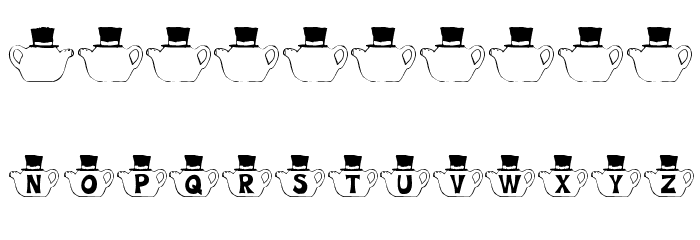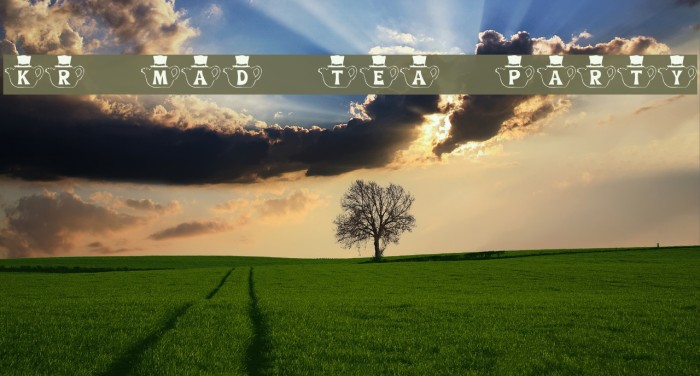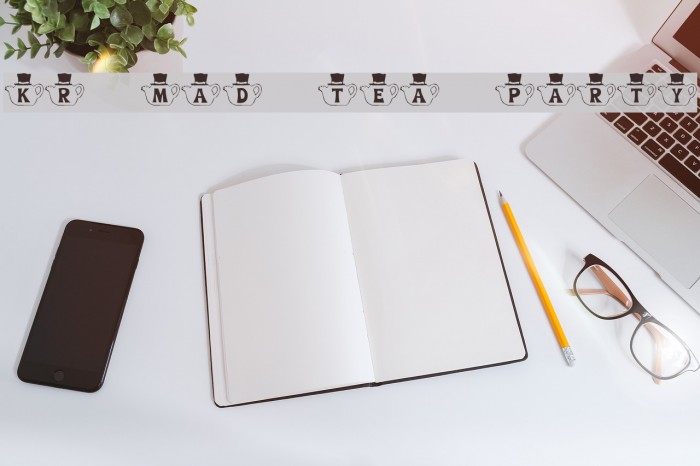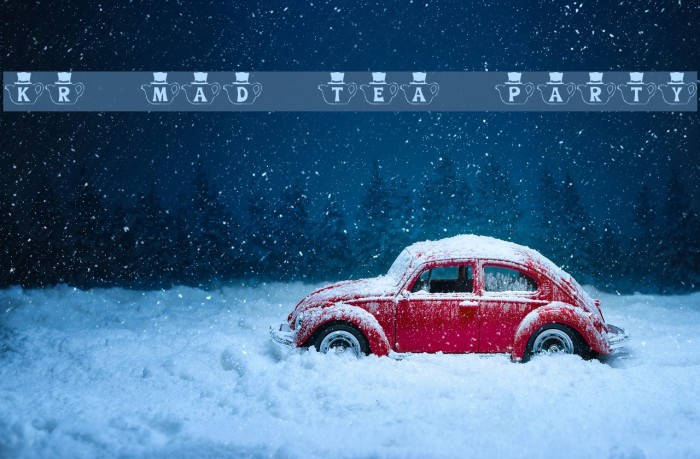
KR Mad Tea Party Font
This whimsical and decorative font features each letter encased within a teapot design, complete with a charming top hat on top. The letters are bold and clear, making them stand out against the intricate teapot illustration. The playful nature of the design evokes a sense of fantasy and imagination, reminiscent of a storybook tea party. The font is highly decorative, making it suitable for themed projects that require a touch of whimsy and creativity. The overall style is unique and eye-catching, perfect for capturing attention in a fun and engaging way.
A whimsical font with letters inside teapot designs, topped with a hat.
- Proposed Projects: Ideal for children's book covers, themed party invitations, fantasy-themed branding, and decorative posters.